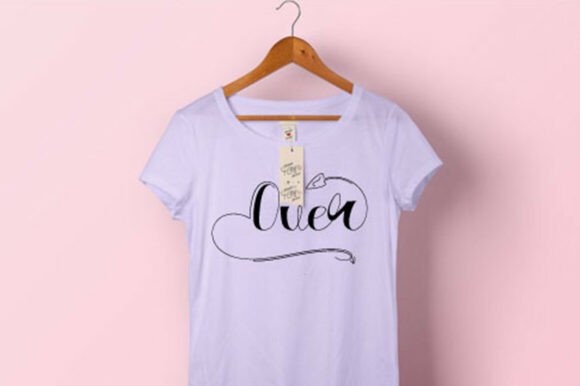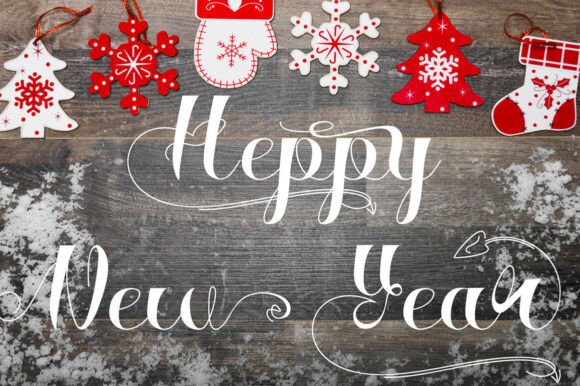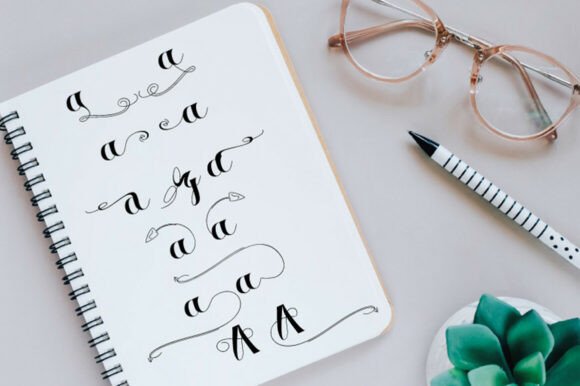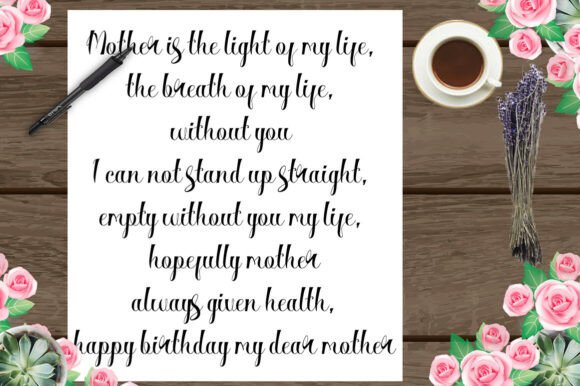
Introduction to Silvagia Font
The moment of pure creative bliss – when a well-designed font brings a project to life. For designers, finding the perfect font can be a game-changer. It’s the difference between a good design and a great one. And that’s where the Silvagia Font comes in – a modern and unique calligraphy script that’s sure to elevate any creative project.
Designed by handwriting, Silvagia Font offers a natural and elegant writing style that’s perfect for headings, logos, and even wedding invitations. With its high-quality features, this font is a valuable resource for designers looking to add a touch of sophistication to their designs. Whether you’re working on a free download or a paid project, Silvagia Font is a must-have in your design arsenal.
Key Features of Silvagia Font
• High-quality design resource ideal for creative projects, offering a unique and elegant touch.
• Designed with precision and care, ensuring a smooth and consistent reading experience.
• Perfect for designers and artists looking for a versatile and stylish font to enhance their work.
Honest Review: Silvagia Font
As a designer, I’m always on the lookout for high-quality design resources to elevate my creative projects. Recently, I had the chance to try out the Silvagia Font, and I must say, it’s a great addition to my design arsenal.
Here are some things that work well: ✨ The font’s elegant and modern design makes it perfect for any project that requires a touch of sophistication. ✨ The font is available for free download, which is a huge plus for designers on a budget. ✨ The transparent background makes it easy to use in a variety of design scenarios.
However, there are a few limitations to keep in mind: ⚠️ The font may not be suitable for projects that require a bold, attention-grabbing font. ⚠️ The font’s character set may not be as extensive as some other fonts, which could be a limitation for designers working on projects with specific character requirements.
Overall, I’m impressed with the Silvagia Font. Its high-quality design and free availability make it a great resource for designers working on creative projects. I’d definitely recommend it to anyone looking for a sophisticated font to add to their design library.
• Perfect for modern and elegant design projects
• Transparent background for easy use
• May not be suitable for bold or attention-grabbing projects
• Character set may not be as extensive as other fonts
Tips for getting the most out of the Silvagia Font include using it on a transparent background for a clean and modern look, and combining it with other design resources for a unique and creative project.
Common use cases for the Silvagia Font include designing logos, business cards, and social media graphics.